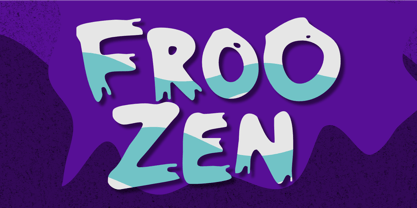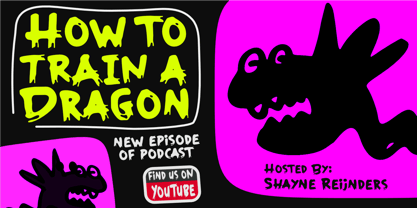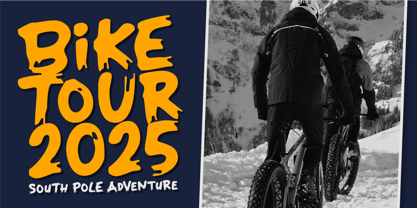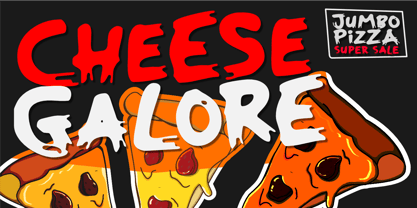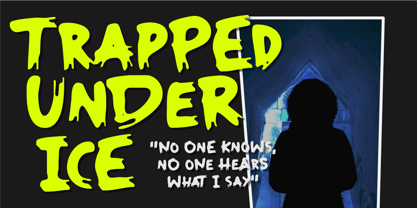
Froozen
by Epiclinez
The Froozen Font Family was designed by Aldy Sidik and published by Epiclinez. Froozen contains 1 styles.
Froozen is a fun, playful, handcrafted font designed to bring personality and creativity to every project. Its unique, handcrafted strokes strike the perfect balance between quirky charm and bold expression, making it a versatile choice for a wide range of designs. Whether you’re creating a logotype, crafting product packaging, designing an eye-catching movie title, or working on an adventurous gaming title, Froozen adapts effortlessly to different moods—from horror themes with an eerie edge to lighthearted playful concepts full of energy.
With its handcrafted style and bold readability, Froozen stands out on posters, merchandise, branding materials, and digital projects. Perfect for social media graphics, event flyers, advertising campaigns, and creative logos, this font ensures your message doesn’t just get noticed—it gets remembered.
If you’re looking for a font that’s playful, bold, and full of handmade character, Froozen is the ultimate design tool to freeze attention on your project.